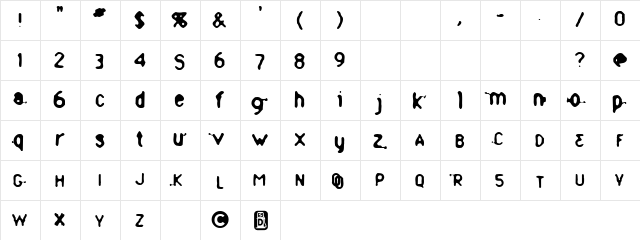
Whorn Regular
Design Context for Whorn Typeface
Whorn is a composed and adaptable typeface that performs quietly and consistently across a wide range of design contexts.